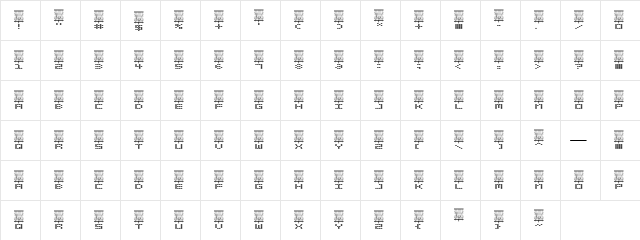
Stereolab Regular
Design Context for Stereolab Typeface
Stereolab takes a measured approach to typography — its balanced proportions and neutral character make it a reliable workhorse for both digital and print work.